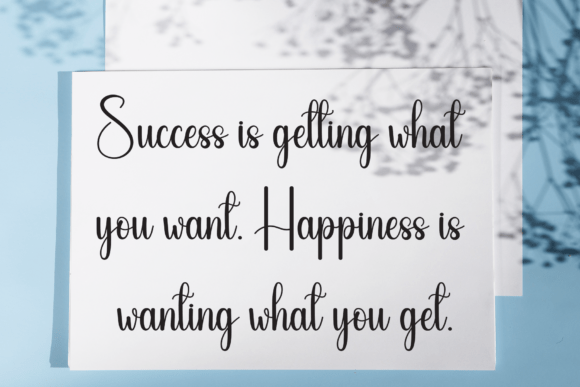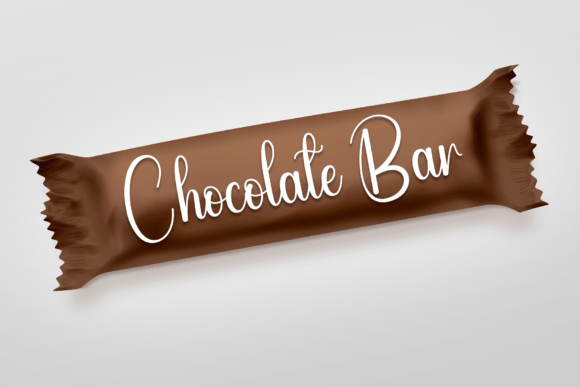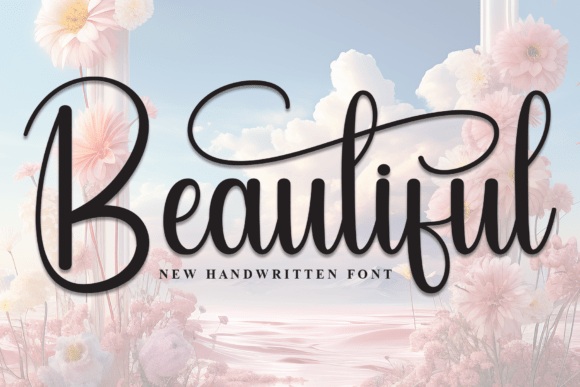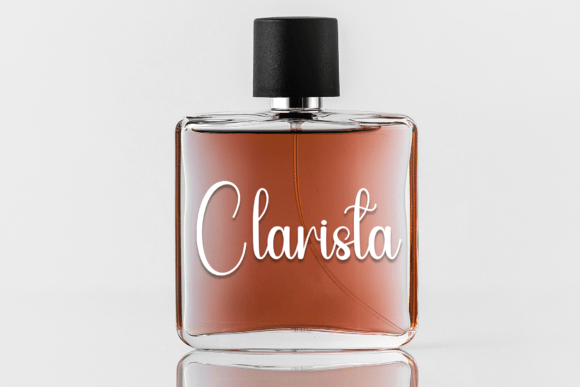
About the Beautiful Font
Experience the unique personality of Beautiful Font, a font designed for impact. Introducing a charming handwritten display font, exuding sweetness and friendliness from each curve and line. Inject a delightful, lighthearted touch into your design projects with this playful font; it’s perfect for personalizing wedding invitations, greeting cards, or any design seeking a dash of whimsy and fun. Adorable and entertaining, this font surely adds a heartwarming character to your creative endeavors.